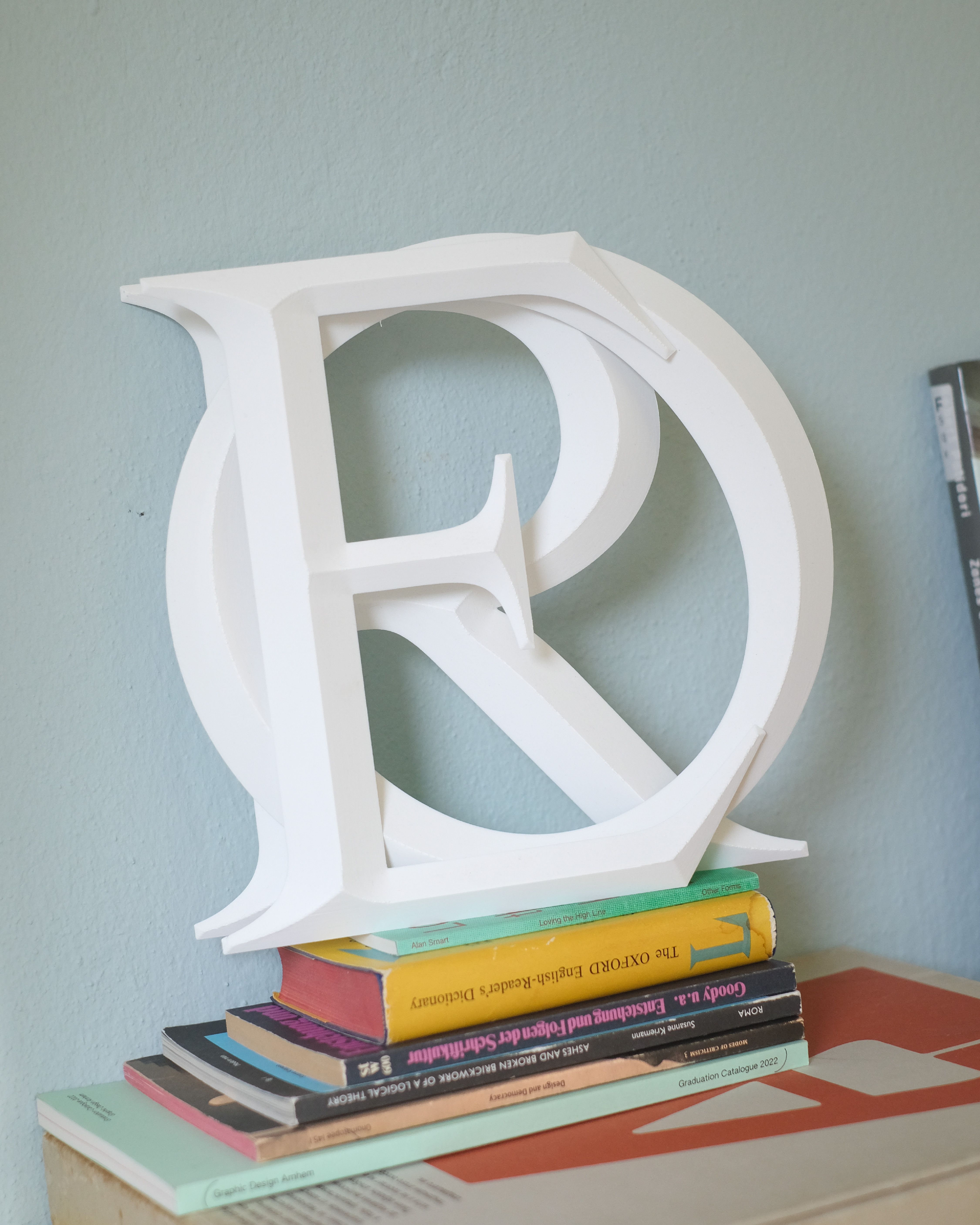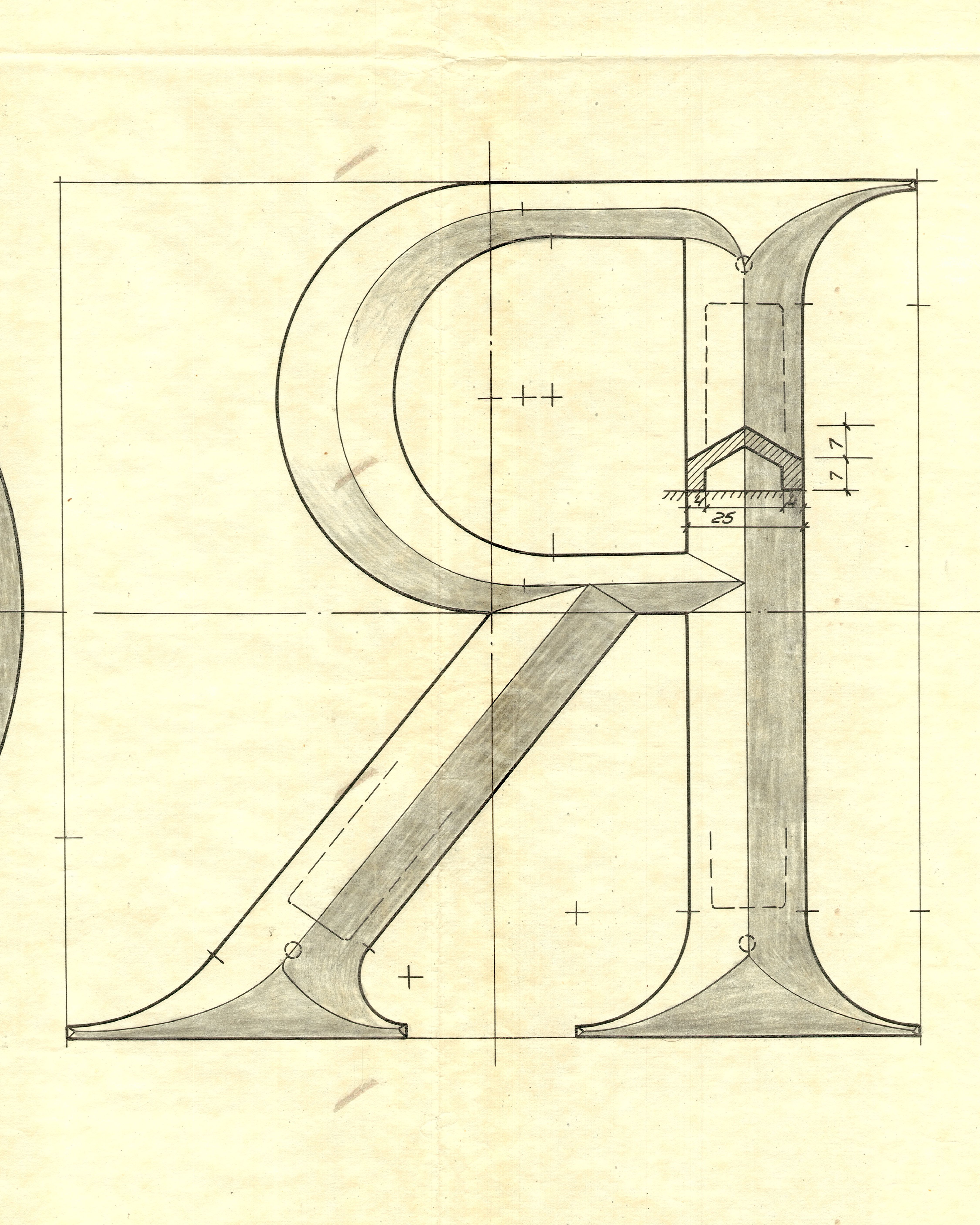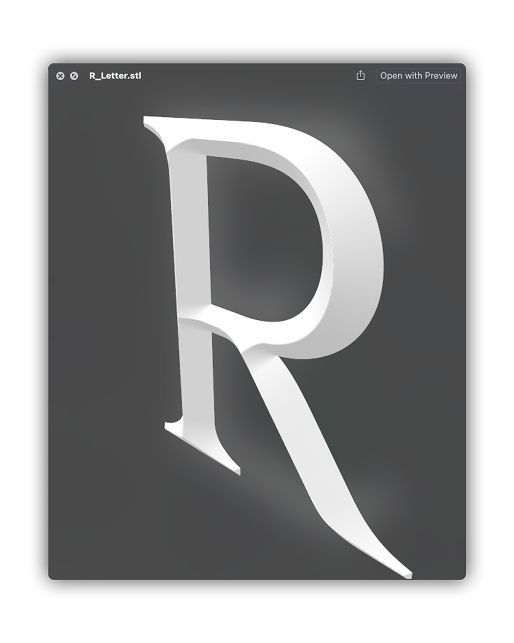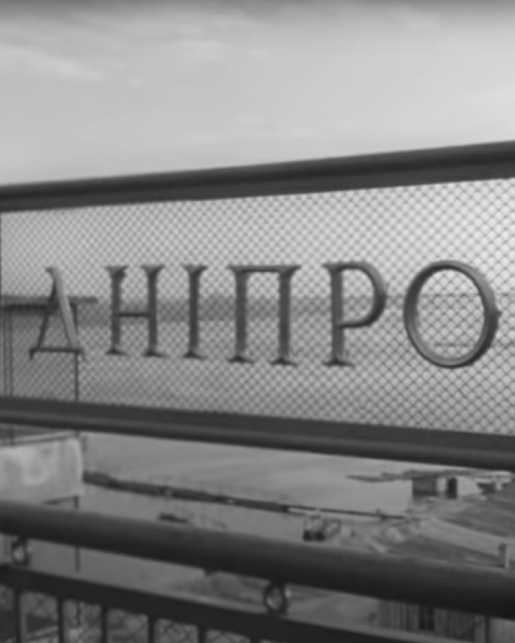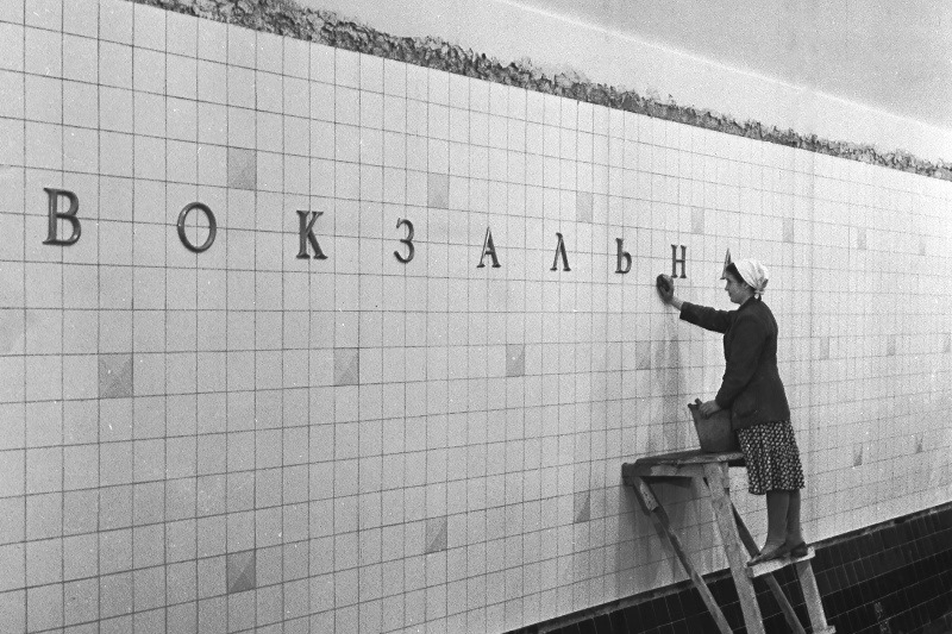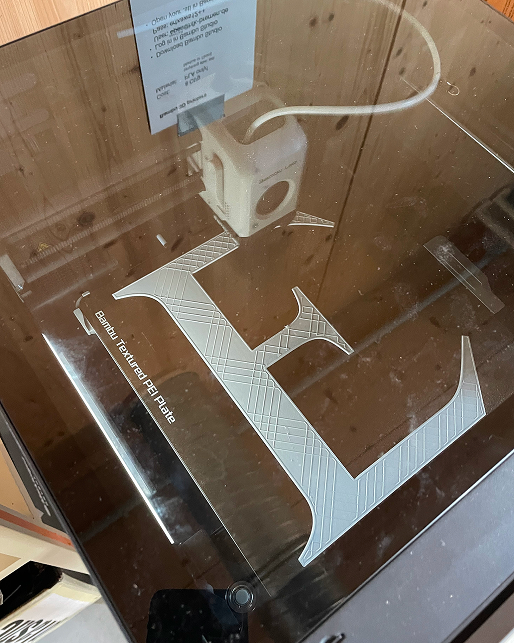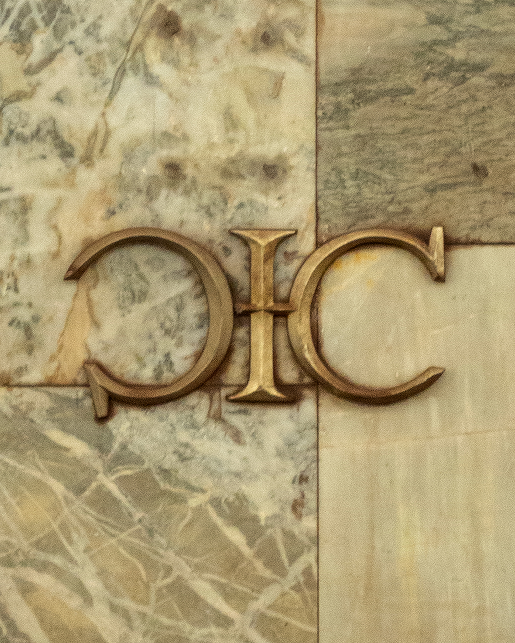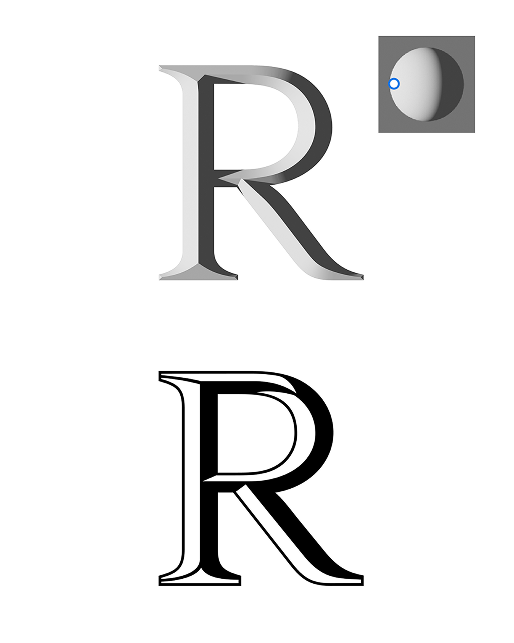
KTF Roman is an extended version of the original KTF Metro Roman, developed as part of the Kyiv Metro Fonts bundle. The family includes Roman, Outline, Shadow, BlackWhite, and Color styles. KTF Metro Roman was created in the summer of 2023 during a workshop with Kyiv Type Foundry students and became a springboard for its further development. The design is based on Kyivmetropojekt’s unique archive of technical drawings, provided by metro historian Oleh Totsky*, as well as photographs of the original metal letters installed in the Kyiv Metro’s Red Line stations during their construction in the 1960s.
The author of these letters remains unknown, though they were most likely drawn by an architect**. This project is dedicated to the craft of anonymous architects whose lettering for buildings quietly shaped the city’s visual landscape.
The initial style translated the letters into flat graphic forms without conveying the physical volume of the metal originals. Yevgen Anfalov and Anna Kovalenko later revealed their spatial character, expanding the design into a full type family through a series of three-dimensional interpretations.
The Outline style emphasises structural outline strokes, revealing the construction of each letterform. BlackWhite conveys dimensionality through an imagined play of light, dividing each letter into illuminated and shadowed planes. The Shadow style presents solid letterforms casting sharp shadows, recalling the visual effect of raised metal signage. By using vibrant colour contrasts, the Color style creates a patchwork-like play of surfaces, transforming the original forms into something entirely new.
KTF Roman reinterprets the cast metal lettering of the Kyiv Metro as a contemporary display family. Its Outline, Shadow, BlackWhite, and Color styles expand its expressive range, while an extensive ligature set introduces joined constructions inspired by the engraved lettering of memorial plaques, tombstones, and architectural inscriptions. The family supports both timeless tschicholdian design gestures and expressive, celebratory applications.
*Oleh Totsky is a Ukrainian researcher and photographer known for his in-depth documentation of the Kyiv Metro. His work focuses on stations, tunnels, and technical infrastructure areas that are typically inaccessible to the public.
**In Totsky’s findings, an interesting detail emerges: archival documents include technical drawings of metal letters used in metro signage, outlining their construction, proportions, and dimensions. Alongside this, a 1963 copy of a drawing from Lenmetroproekt (a Soviet research, design, and engineering institute responsible for metro planning and construction) specifies cast letterforms at a fixed height of 18.5 cm, further illustrating how Cyrillic signage was standardized.
- Technical drawing for the Cyrillic letter Я. Lenmetroproekt, 1963.
- Documentary footage “Opening of the Kyiv Metro. Unique newsreels from 1959–1960”. YouTube, 2014.
- Photograph from Yevgen Anfalov’s private collection.
- Station wall lettering at Vokzalna station. Central State Audiovisual and Electronic Archive of Ukraine, Kyiv, 1960.
- From Walter Käch, Schriften, Lettering, Écritures. Olten: Verlag Otto Walter, 1949.
- Screenshot from the video “Kyiv Metro: Renaming of the Station ‘Square of Ukrainian Heroes’”. Kyiv City State Administration, YouTube, 2024.
- From C. Geoffrey Holme, ed., Lettering of To-day. London: The Studio Limited, 1941.
- 3D-printed letters for the short film “Go to Hell, Goliath”. Photograph by Andrij Smirnov, 2023.
- 3D visualization of the letter “R”.
- The 3D printing process. Photograph by Andrij Smirnov, 2023.
- A digital study exploring the interaction of light and shadow on the letterforms of KTF Roman, 2025.
- From Rudolf Koch, Das Zeichenbuch. Offenbach am Main: Gerstung, 1923.